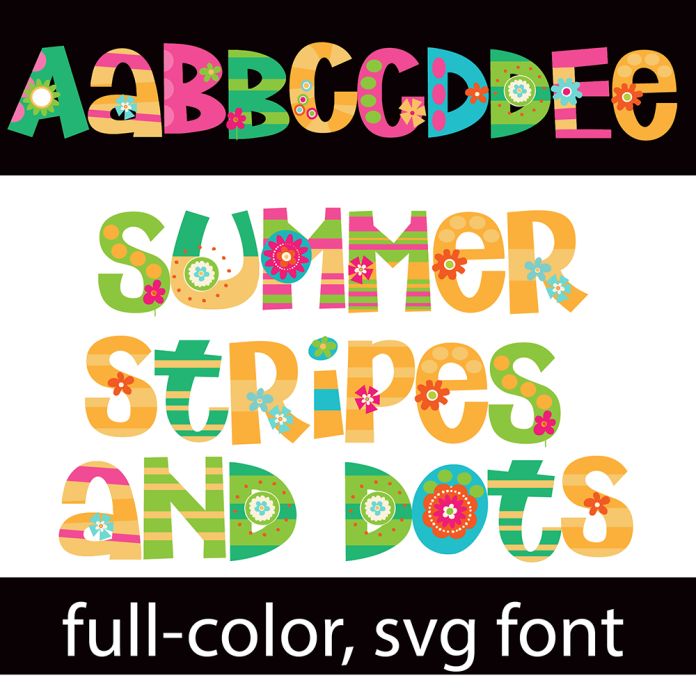
This full-color font a flourished a whimsical font in a summer color palette accented with summer flowers. There is an alt case with additional colors you can access through your system's character map. This font works best for titles, displays, posters and more. Please note color fonts will show as black in non compatible programs. This font type is compatible with Silhouette Studio.